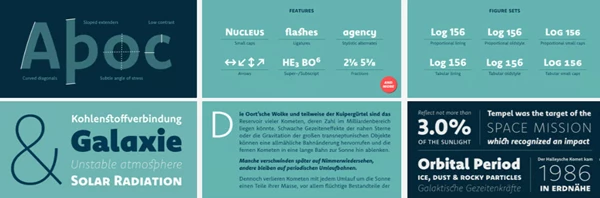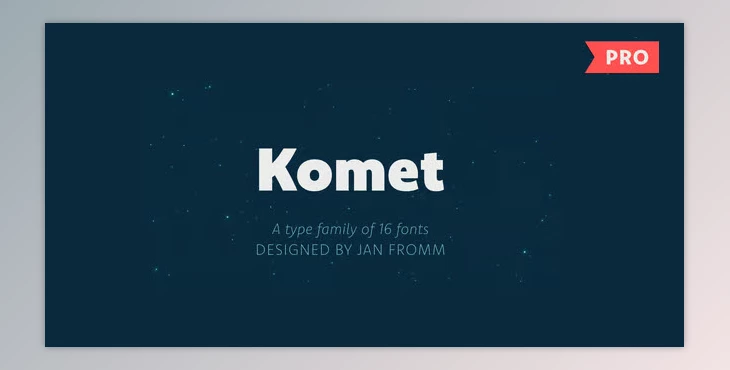
The Komet Pro Font Family stands out as a typeface with remarkable calmness and strength. It has some traces of English classic sans serif, but Komet Pro is more modern and lively with its touches. It has compact spacing, low stroke contrast, notable dots and accents, and is almost monolinear. Its charm also comes from the rounded counters of letters like b, o, and q and the slight curve of the diagonals. The middling weights of Komet Pro are understated and smooth, making them suitable for long passages of text, while the light and dark weights are dynamic and ideal for impactful text and headlines.
Komet Pro is ideal for editorial, branding, and corporate design because it includes 8 weights from Thin to Black, each with matching italics. With about 850 glyphs per font, this font family offers a treasure of OpenType features such as small caps, various types of ligatures, ten different figure sets with their respective currency symbols, stylistic alternates, and arrows. Thus, Komet Pro becomes a must-have for sophisticated typographic projects.